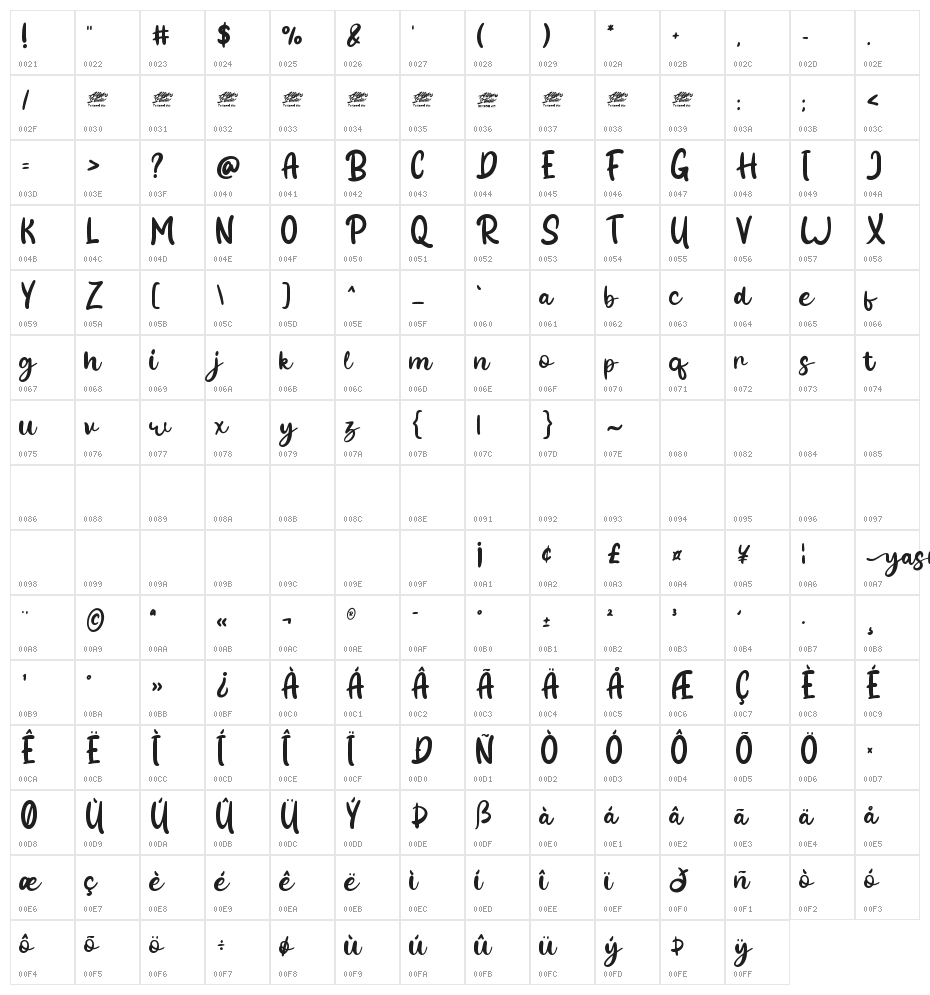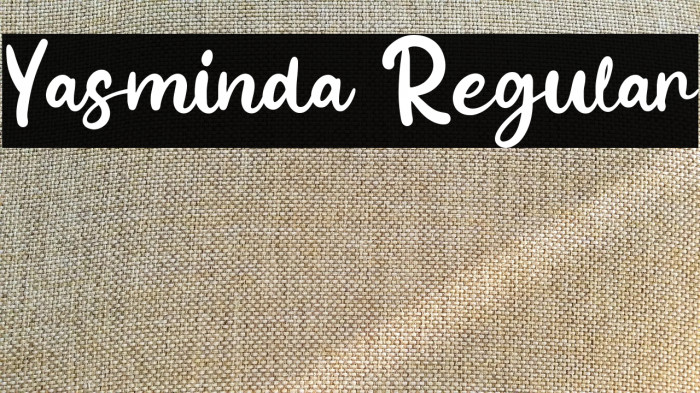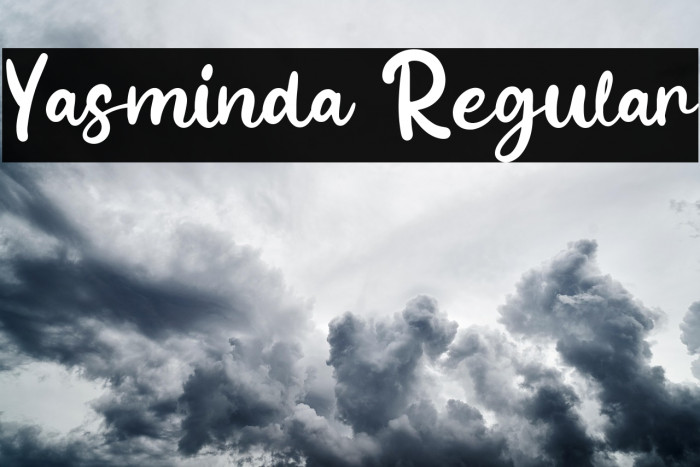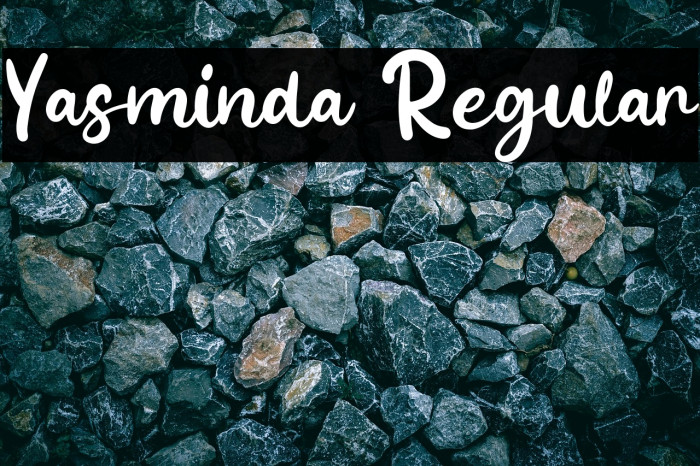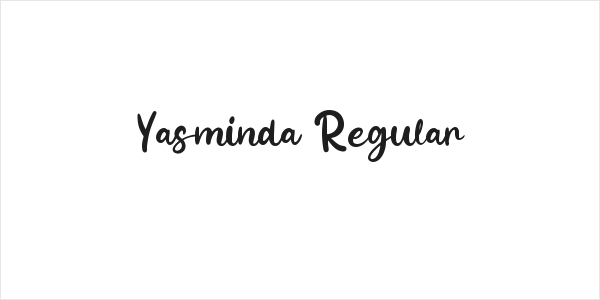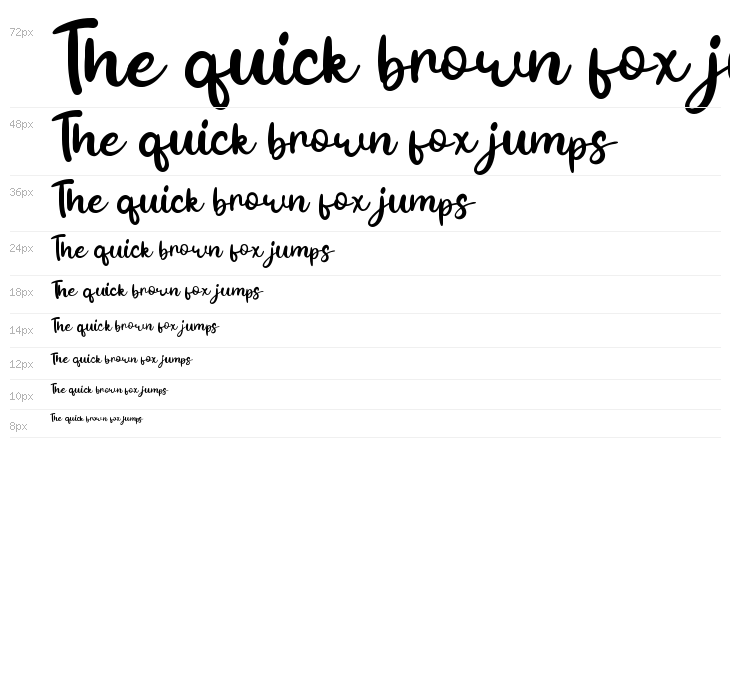
Yasminda Regular Font
Yasminda Regular Description
This font features a playful and casual script style, characterized by its flowing, connected letters and smooth curves. The uppercase letters are bold and slightly exaggerated, giving a sense of movement and energy. The lowercase letters maintain a consistent style, with rounded edges and a friendly appearance. The numbers and special characters follow the same aesthetic, ensuring a cohesive look across all text. This font is ideal for projects that require a personal touch, such as invitations, greeting cards, or branding materials. Its legibility and charm make it suitable for both digital and print media.
| Proposed Projects | Ideal for invitations, greeting cards, branding materials, and personal projects. |